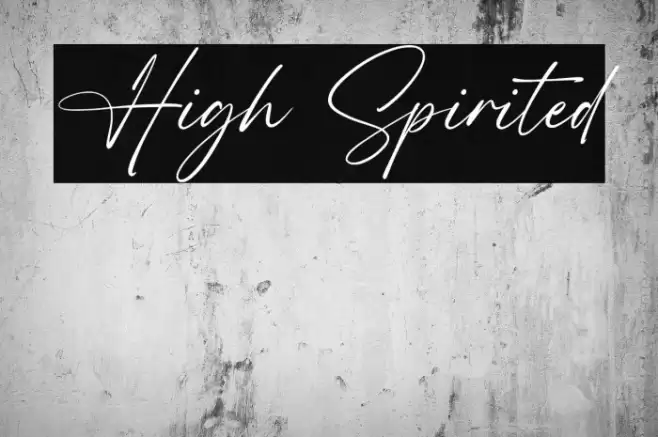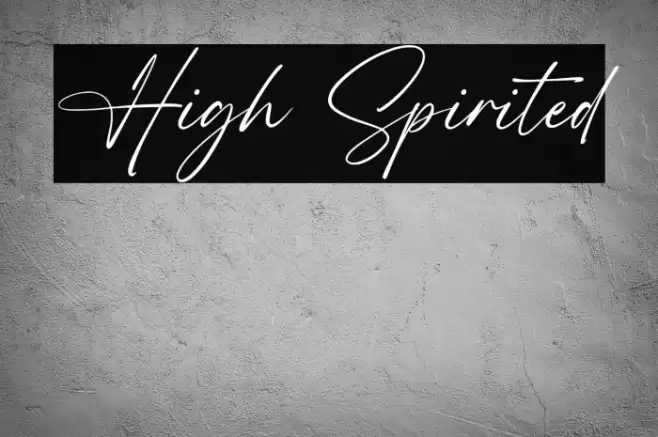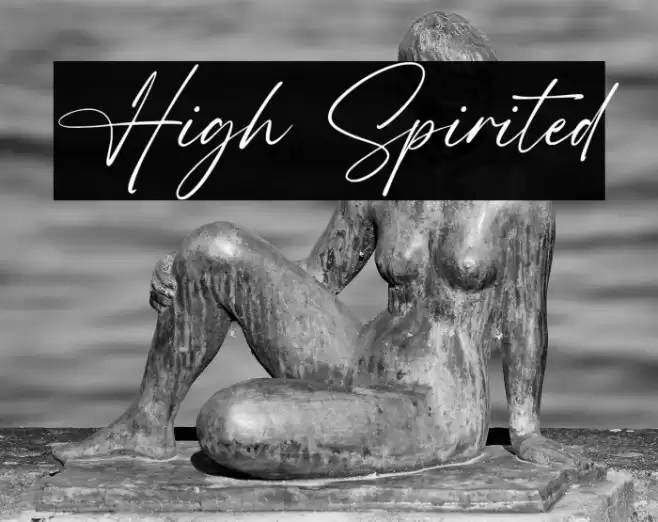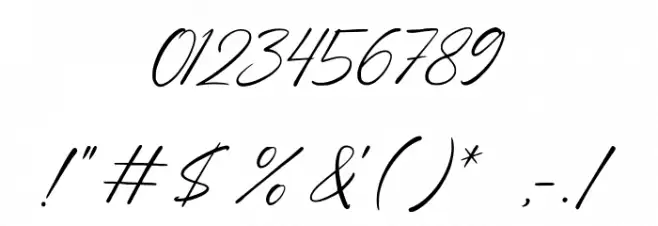
High Spirited Font
High Spirited Description
This font exudes elegance and fluidity, characterized by its cursive, handwritten style. The letters are gracefully connected, with smooth, flowing lines that create a sense of movement and sophistication. The uppercase letters are slightly more elaborate, featuring gentle loops and swirls, while the lowercase letters maintain a consistent, flowing script. The numerals and special characters complement the overall aesthetic, maintaining the same elegant style. This font is perfect for projects that require a touch of class and refinement, such as wedding invitations, formal event programs, or high-end branding materials.
An elegant, cursive handwritten font with flowing, connected letters from Uncategorized fonts.
- Proposed Projects: Ideal for wedding invitations, formal event programs, and luxury branding.
- Overall Style: Elegant, Sophisticated
- Use Case: Invitations, Branding, Decorative